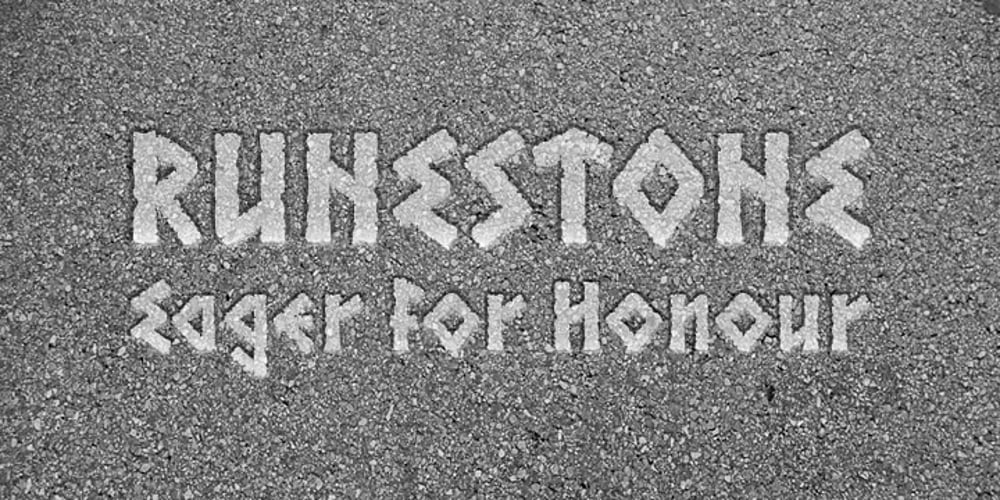
Runestone Font Family was designed by Keith Bates and published by K-Type. Runestone contains 1 styles and family package options. Runestone is a bold typeface derived from ancient Runic alphabets carved into standing stones. It also evokes the style of engraved Greek and Phoenician lettering. The additional Small Caps version is included in the family package, two fonts for the price of one.